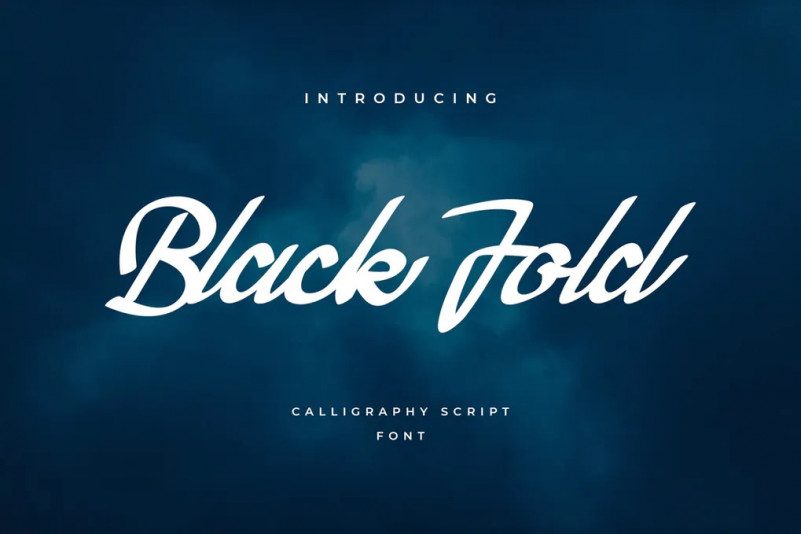
Black Fold Font
Black Fold is a perfect script handwritten for branding projects, logo, wedding designs, social media posts, advertisements, product packaging, product designs, label, photography, watermark, invitation, stationery and any projects that need handwriting taste.